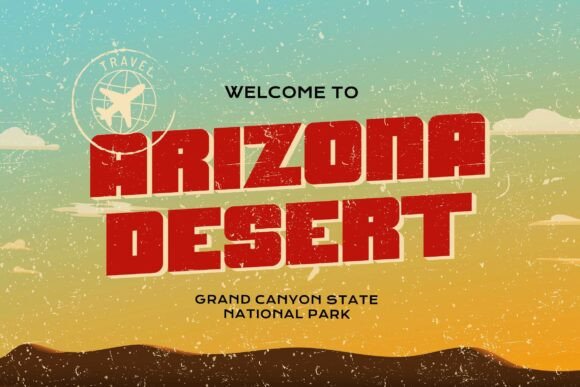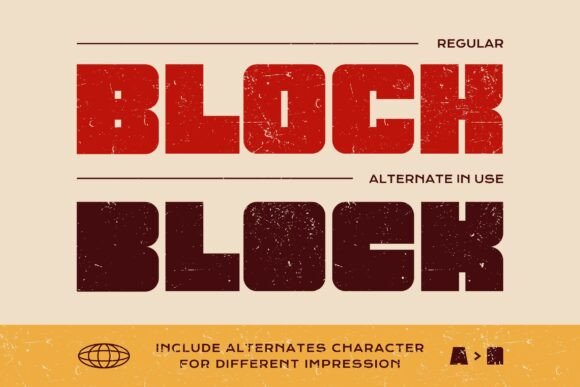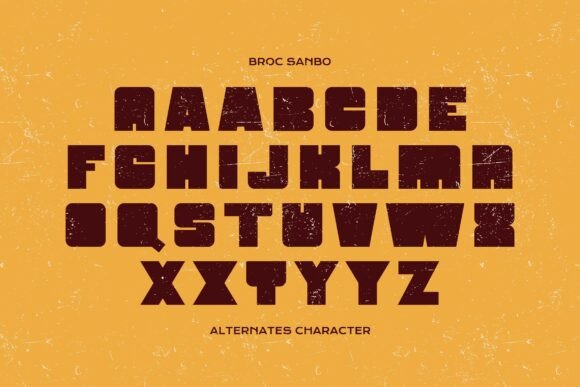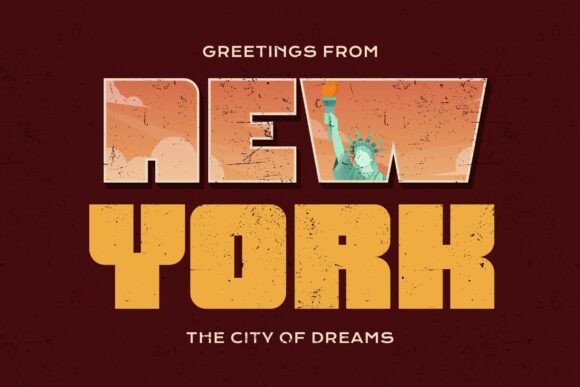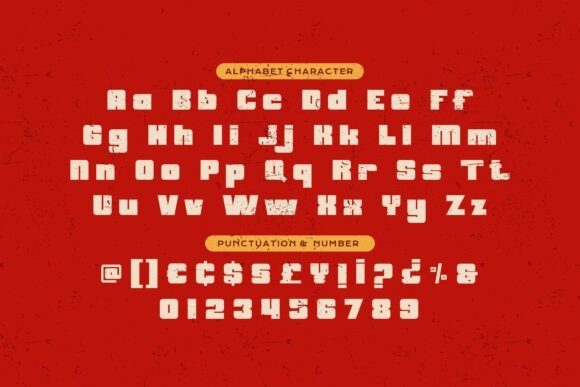
The Perfect Font for a Bold Statement
Have you ever been inspired by a font while flipping through a vintage movie poster or an old-school video game manual? I know I have. The nostalgic feel of classic typography can evoke a sense of excitement and adventure, transporting us back to a bygone era. For designers looking to capture this essence in their work, the Broc Sanbo Font is the perfect choice.
This bold retro display font is designed to make a statement, with thick, block-like letters and tight curves that exude a sense of ruggedness and style. Whether you’re creating a travel poster, sports logo, or trendy urban flyer, the Broc Sanbo Font is sure to grab attention and leave a lasting impression.
As a valuable addition to any designer’s toolkit, the Broc Sanbo Font offers endless possibilities for creative expression, from vintage western titles to bold logos and apparel designs. Its versatility and unique aesthetic make it a must-have for anyone looking to add a touch of retro cool to their work.
Broc Sanbo Font Key Features
- Character Set: The font includes a wide range of characters, including Latin, Cyrillic, and Greek alphabets, as well as various symbols and punctuation marks.
- Unique Characteristics: The Broc Sanbo Font features a unique blend of geometric and organic elements, resulting in a distinctive and modern aesthetic.
Broc Sanbo Font Review
Overall, I think the Broc Sanbo font is a solid choice for a sans-serif font family. It has a clean and modern aesthetic that’s perfect for digital products, apps, and websites.
- Unique and stylish design that stands out from other sans-serif fonts
- Wide range of weights and styles to choose from, making it versatile for different design needs
- Legibility is excellent, making it easy to read even at small font sizes
- Good for titles, headings, and body text
- May not be suitable for print materials due to its digital origins and relatively low x-height
- Some users may find it too modern or bold, which may not fit with their design style
- Not as extensive a character set as some other font families, which may limit its use in certain contexts
I think the Broc Sanbo font is a great choice for designers who want a modern and stylish sans-serif font. While it may have some limitations, its unique design and excellent legibility make it a solid addition to any design toolkit.
Tips for Getting the Most Out of the Broc Sanbo Font
Use the Broc Sanbo font to add a unique and modern touch to your designs. Experiment with different font sizes, colors, and combinations to create visually appealing text elements. You can also use the font in conjunction with other design elements, such as images and graphics, to create a cohesive and engaging design.
The Broc Sanbo font is suitable for a variety of design projects, including logos, branding materials, and marketing materials. You can also use the font to create eye-catching headings, titles, and captions for your designs.